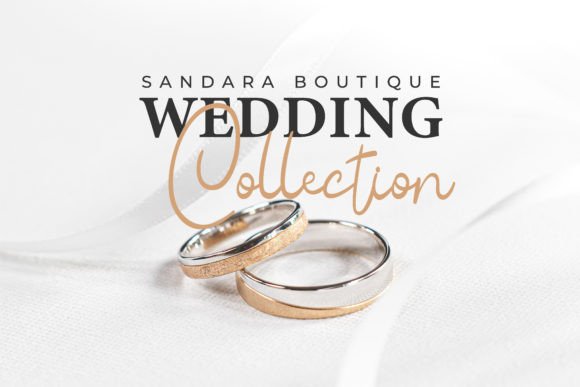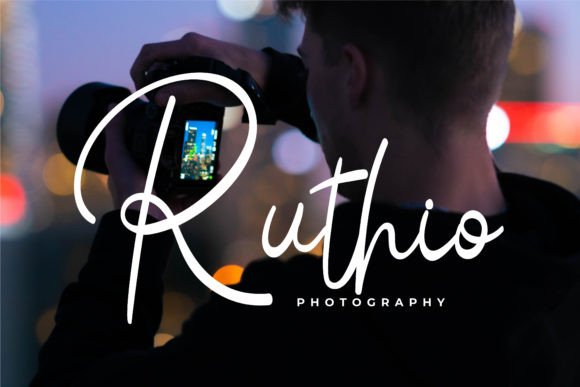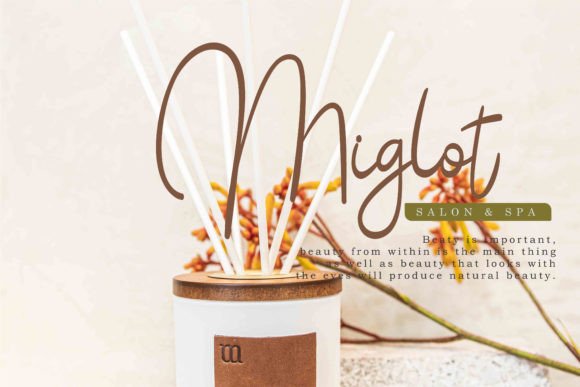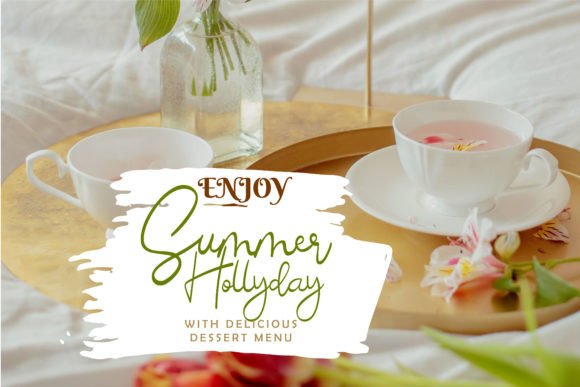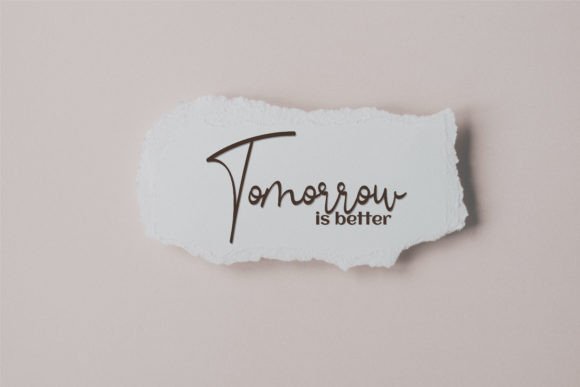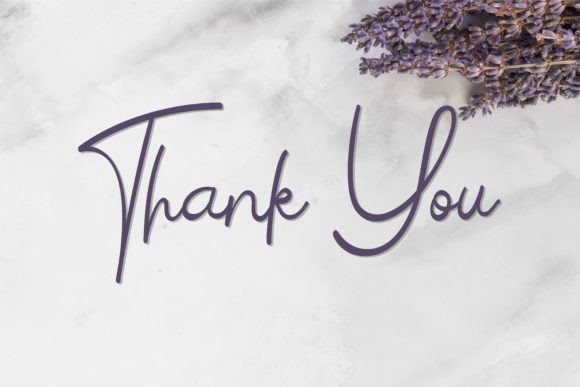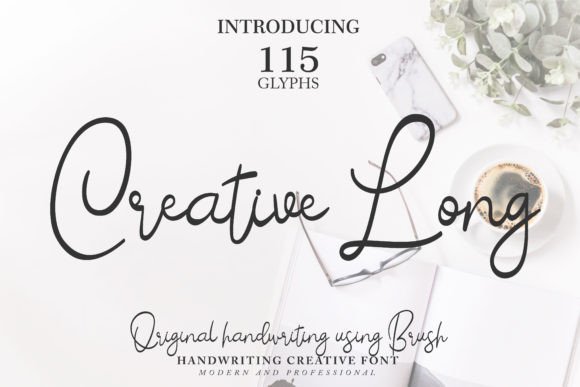
Introducing Creative Long Font: Elevate Your Designs with Bold Handwritten Style
Are you tired of using the same old fonts in your designs? Look no further than Creative Long Font, a stunning handwritten font that adds a touch of elegance and sophistication to any project. With its bold and beautiful script, Creative Long Font is perfect for designers and crafters looking to make a statement.
What is Creative Long Font?
Creative Long Font is a unique and eye-catching handwritten font that is sure to turn heads. Its bold and flowing script makes it perfect for a variety of design applications, from wall displays and wedding invitations to social media posts and product packaging. Whether you’re a professional designer or a crafty DIY enthusiast, Creative Long Font is a versatile and stylish choice that will elevate your designs to the next level.
Uses for Creative Long Font
So, what can you use Creative Long Font for? The possibilities are endless! Here are just a few ideas to get you started:
- Wall Displays: Create eye-catching wall displays for events, promotions, or simply to add a touch of personality to your home or office.
- Wedding Invitations: Make your wedding invitations truly special with Creative Long Font. Its elegant script is sure to impress your guests and set the tone for your big day.
- Social Media Posts: Add a touch of style to your social media posts with Creative Long Font. Whether you’re promoting a product or simply sharing a personal update, this font is sure to make your post stand out.
- Logos: Create a bold and memorable logo for your business or brand with Creative Long Font.
- Advertisements: Use Creative Long Font to create eye-catching advertisements that grab attention and drive results.
- Product Packaging: Add a touch of elegance to your product packaging with Creative Long Font. Perfect for luxury brands or special edition products.
- Product Designs: Use Creative Long Font to create stunning product designs that showcase your brand’s personality and style.
- Labels: Create beautiful and functional labels for your products or projects with Creative Long Font.
- Photography: Add a touch of style to your photography with Creative Long Font. Use it to create beautiful watermarks or overlays.
- Invitations: Create stunning invitations for any occasion, from birthday parties to baby showers.
- Stationery: Add a touch of elegance to your stationery with Creative Long Font. Perfect for personal or business use.
Why Choose Creative Long Font?
So, why choose Creative Long Font over other fonts? Here are just a few reasons:
- Unique and Eye-Catching: Creative Long Font is a truly unique and eye-catching font that will make your designs stand out.
- Versatile: Use Creative Long Font for a variety of design applications, from digital to print.
- Elegant and Sophisticated: Creative Long Font adds a touch of elegance and sophistication to any design.
- Easy to Use: Creative Long Font is easy to use and works seamlessly with most design software.
Tips for Using Creative Long Font
Here are a few tips for getting the most out of Creative Long Font:
- Experiment with Colors: Try pairing Creative Long Font with different colors to create a unique and eye-catching design.
- Play with Sizes: Experiment with different font sizes to create visual interest and hierarchy in your design.
- Combine with Other Fonts: Try pairing Creative Long Font with other fonts to create a unique and stylish combination.
| Font Name | Creative Long Font |
| Author | Arief Indra Pratama |
Creative Long Font is a stunning handwritten font that is sure to elevate your designs to the next level. With its bold and beautiful script, this font is perfect for designers and crafters looking to make a statement. Whether you’re creating wall displays, wedding invitations, social media posts, or product packaging, Creative Long Font is a versatile and stylish choice that will help you stand out from the crowd.